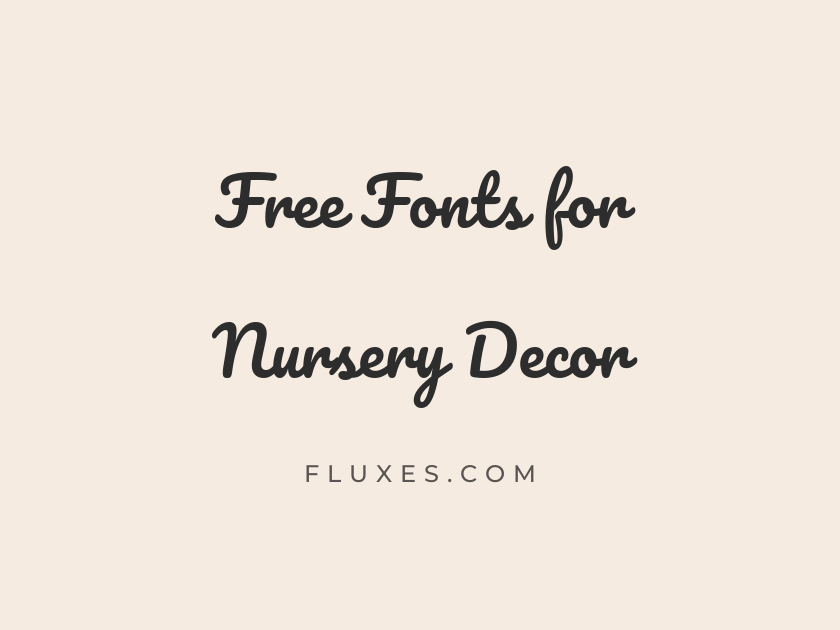
65 Best Free Fonts for Nursery Decor
Decorating a nursery is one of the most joyful design projects a parent ever takes on, and typography plays a bigger role than most people expect. A well-chosen typeface turns a plain name print, growth chart, or “welcome baby” banner into something that feels handmade and heartfelt, whether the room’s theme leans toward soft watercolor woodland creatures, a modern neutral palette, or a whimsical storybook mood. The good news is that free fonts from Google Fonts cover every one of these moods, from delicate calligraphy scripts to chunky, huggable display letters, so there is no need to buy a premium license to make nursery wall art that looks custom-designed.
What follows is a wide-ranging collection organized loosely by mood: elegant scripts for name prints and quotes, casual handwritten styles for playful signage, soft rounded sans-serifs for a modern gender-neutral look, punchy display faces for alphabet posters and animal themes, and a few storybook serifs and vintage typewriter styles for a more literary or heirloom feel.
Welcome to the world, baby Olivia
Pacifico’s bouncy, surf-culture curves have softened into one of the most reached-for scripts in baby announcement design, and it reads as friendly rather than formal. The rounded terminals and generous loops make it a natural fit for a name banner painted above a crib or stitched onto a growth chart.
It holds up nicely at large sizes on a canvas print but starts to feel a little cramped in long phrases, so it works best for a single name or a short phrase like “hello little one.”
Sweet dreams, little one
A flowing, wedding-invitation style script that brings instant elegance to a nursery quote print. Pair it with plenty of white space; its delicate hairlines can vanish against busy patterned wallpaper.
Twinkle, twinkle, little star
Softer and rounder than most formal scripts, Parisienne has a romantic, almost storybook quality that suits a pink-and-gold or vintage-French nursery theme without tipping into overly bridal territory.
Once upon a time, in a nursery
A slender, upright script with a light, airy feel. It’s especially good for a monogram or short saying stenciled onto a dresser or mirror where a heavier script would feel too dominant.
Our little miracle has arrived
Alex Brush mimics real brush calligraphy with visible ink pooling at the stroke ends, giving it a handcrafted warmth that photographs beautifully on a canvas print above a rocking chair.
Baby Owen, sleeping under the moon
Thin, elongated, and quietly graceful, Allura is best kept small and used sparingly, perhaps for a subtitle beneath a bolder name in a two-font composition.
Hush now, my darling, hush
This one leans casual-elegant, like a note dashed off by a stylish aunt. Its loose, slightly irregular strokes give hand-lettered charm to a birth announcement without feeling stiff.
Little feet, big adventures ahead
A rounder, friendlier script than most formal calligraphy fonts, Cookie has a candy-shop sweetness that pairs well with pastel color palettes and playful nursery themes.
Growing up under starlight and love
Bold and confident for a script, with thick, consistent strokes that stay legible even printed fairly small, making it a solid choice for a busy multi-line wall quote.
Home is wherever mama is
Extremely fine and ornate, this is a display script meant to be seen rather than read from across the room; reserve it for a large-format single word like “family” or “welcome.”
You are my sunshine, baby
A warm, rounded script that feels closer to natural handwriting than most calligraphy fonts. It sits comfortably alongside sans-serif body text if you need a two-font pairing for a nursery print.
Rock-a-bye baby, in the treetop
Chunky and playful with a slight retro-soda-shop feel, Playball works well for short, punchy words on onesie designs or nursery door signs.
Little dreamer, big imagination
Slanted and slightly informal, Meddon has an old-fashioned pen quality reminiscent of a handwritten letter tucked into a baby book.
A star is born, baby girl
True to its name, this one carries a genteel, old-world formality, best suited to a keepsake birth certificate frame or a monogrammed pillow rather than a loud statement piece.
Welcome home, our little bear
An ornate copperplate-style script with dramatic swashes; gorgeous for a single word centered on a large canvas, but it needs generous spacing to avoid feeling cramped.
Wild and free, little one
Loose and energetic, with a hand-tossed quality that keeps it from feeling overly precious. It suits nurseries with a boho or wildflower theme.
Beau Rivage
Adventure awaits, baby explorer
Beau Rivage
A delicate, wavy script with an almost vintage postcard charm, nice for a travel-themed nursery (“adventure awaits”) or a map-and-compass wall arrangement.
Love you to the moon
Norican has a distinctive lean and irregular baseline that gives it real personality among calligraphy fonts; it reads as confident and a touch whimsical rather than dainty.
Test your chosen font against the actual wall color or wallpaper pattern before committing to a large canvas print, since some delicate scripts can disappear against busy backgrounds.
With this many free, high-quality options available, there is no reason to settle for a generic default font in a room meant to feel this personal. A thoughtfully chosen typeface, printed large and given room to breathe, can make a nursery feel finished in a way that furniture and paint alone never quite achieve.